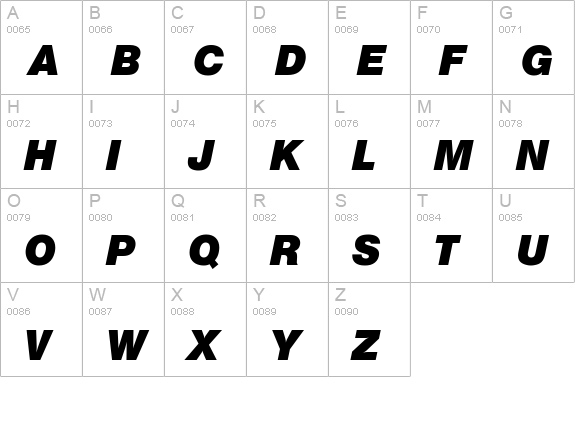
Choque Display SSi Bold Italic is a strong, high-contrast, italic variant in the Choque typeface family \xE2\x80\x94 well suited to headlines, attention-grabbing titles, and strong calls-to-action.
Choque Display SSi Bold Italic font is a striking and dynamic typeface that is sure to make your designs stand out. With its bold and italic characteristics, this font exudes a sense of strength and modernity. The sharp angles and unique letterforms of Choque Display SSi Bold Italic add a touch of sophistication to any project. Best of all, Choque Display SSi Bold Italic font is available for free download at FontsMarket.com. Whether you're working on a poster, logo, or website design, this font is the perfect choice to make a bold statement. Don't miss out on this opportunity to enhance your creative projects with the eye-catching style of Choque Display SSi Bold Italic font. Download it now and see the difference it can make in your designs!